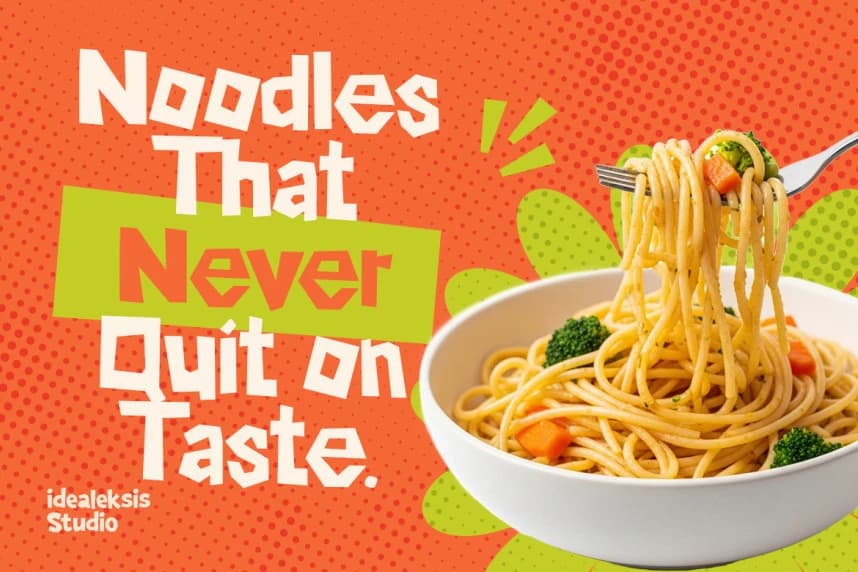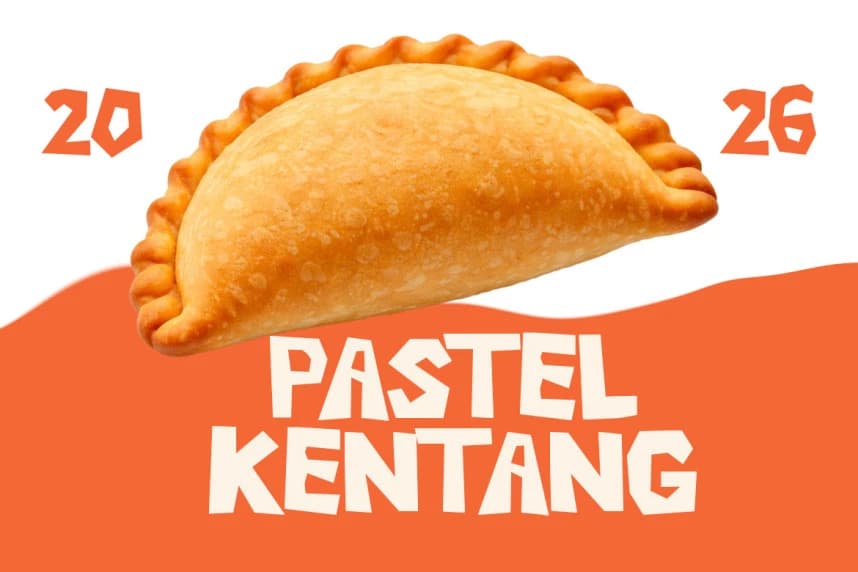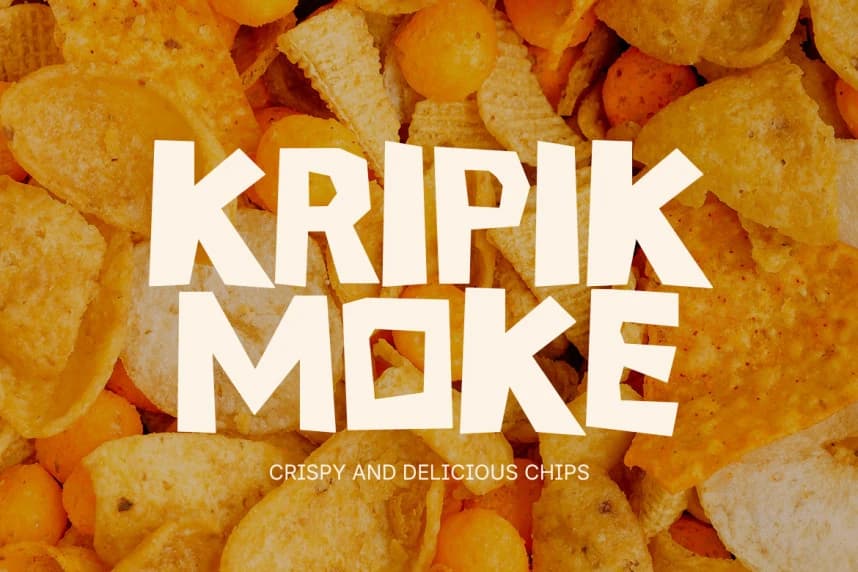
Soeber Mebor – Food Font
Soeber Mebor – Food Font - A bold and chunky display typeface characterized by its irregular, hand-cut geometric shapes. The letterforms exhibit a heavy weight with sharp, angular terminals and uneven stroke widths